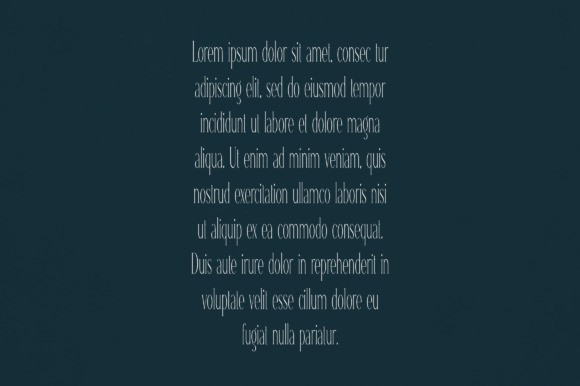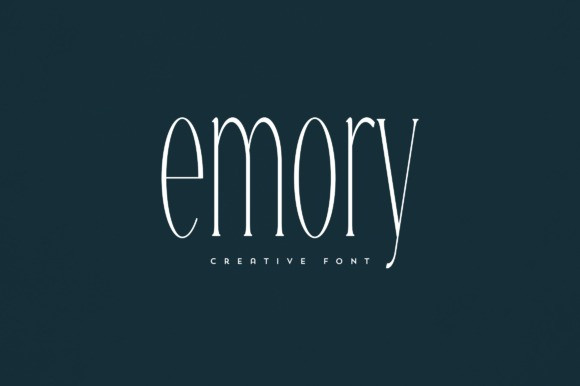
Emory Font
Emory Font is an elegant and versatile font that will make your typography truly unique! It will enchant every logo, branding, headline, or plain text!